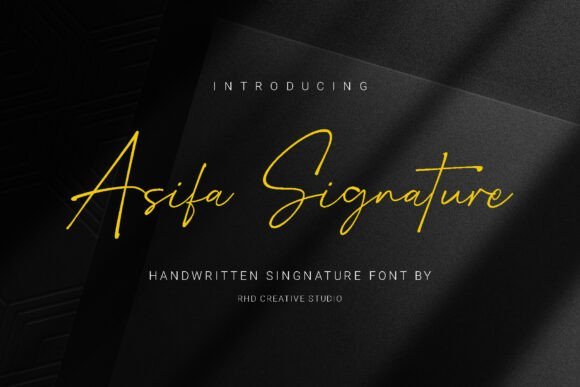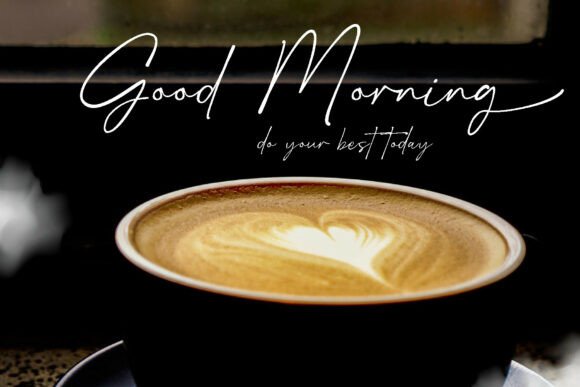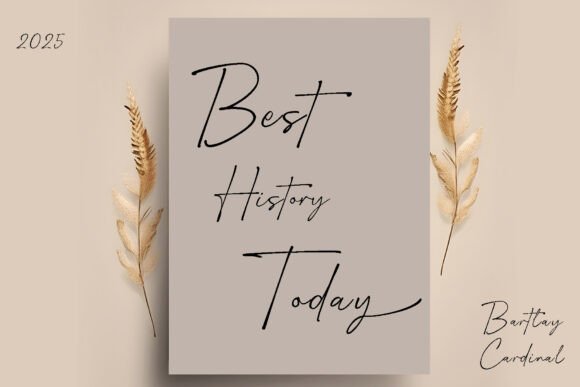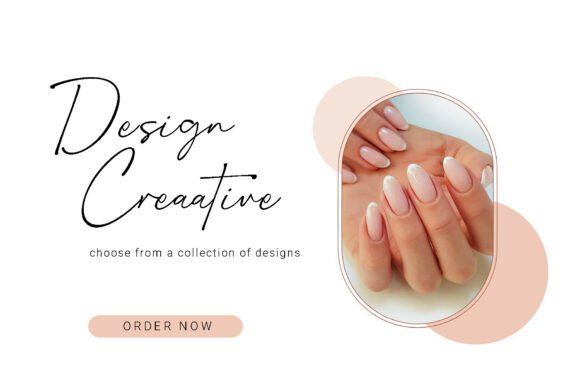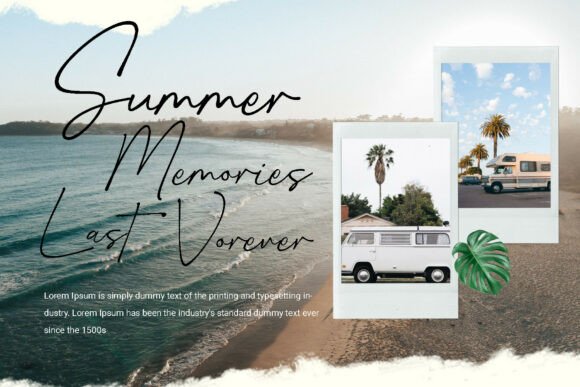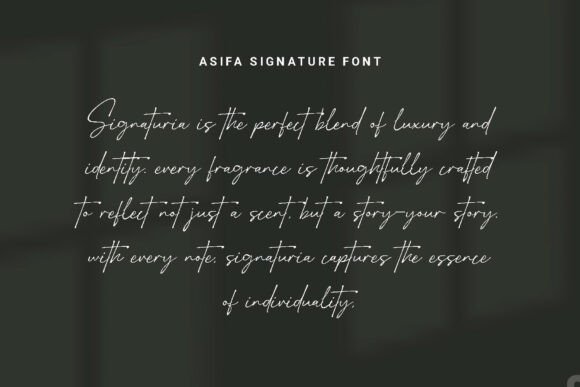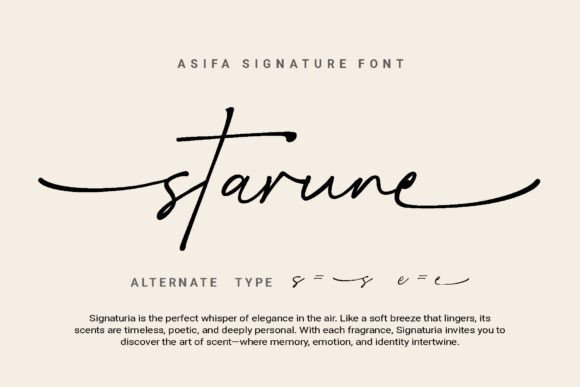
Remember that moment when you’re brainstorming a new design project and the perfect font just slips into your mind, elevating your entire concept? For designers, finding that elusive font can be a game-changer. It’s the difference between a decent design and a truly breathtaking one.
Enter Asifa Signature Font, an exquisite handwritten font that’s sure to become a favorite among designers. This masterfully designed font seamlessly blends classy calligraphic influences with a fresh, contemporary feel. Whether you’re working on a high-end branding project or a heartfelt invitation, Asifa Signature Font is the perfect choice to bring your vision to life.
With Asifa Signature Font, you’ll be able to infuse your designs with a personal touch that sets them apart from the rest. Its unique charm and elegance make it a valuable addition to any designer’s toolkit, ensuring that your projects reach new heights of sophistication and style.
Asifa Signature Font Key Features
- Unique Characteristics: Elegant script font with beautiful, flowing connections between letters, perfect for signatures, logos, and titles
Asifa Signature Font Review
Asifa Signature Font is a beautiful and elegant script font that’s perfect for adding a touch of sophistication to your designs. Here’s my honest review:
- High-Quality Design: The font is meticulously crafted with attention to detail, making it perfect for logos, invitations, and other high-end designs.
- Great for Titles: The font is perfect for titles and headings, adding a touch of elegance and sophistication to any design.
- May Not Be Ideal for Body Text: The font is a bit too ornate for body text, making it difficult to read in large blocks of text.
- May Require Adjustments: Depending on the design, the font may require some adjustments to make it work perfectly, such as adjusting the font size or line spacing.
Overall, Asifa Signature Font is a beautiful and elegant script font that’s perfect for adding a touch of sophistication to your designs. While it may have some limitations, it’s definitely worth considering for your next project.
Tips for Getting the Most Out of Asifa Signature Font
Use Asifa Signature Font to add a touch of elegance and sophistication to your designs. Pair it with simple backgrounds to let the font be the focal point. Experiment with different font sizes and colors to create visual interest.
Asifa Signature Font is ideal for:
- Quotes and typography-based designs.